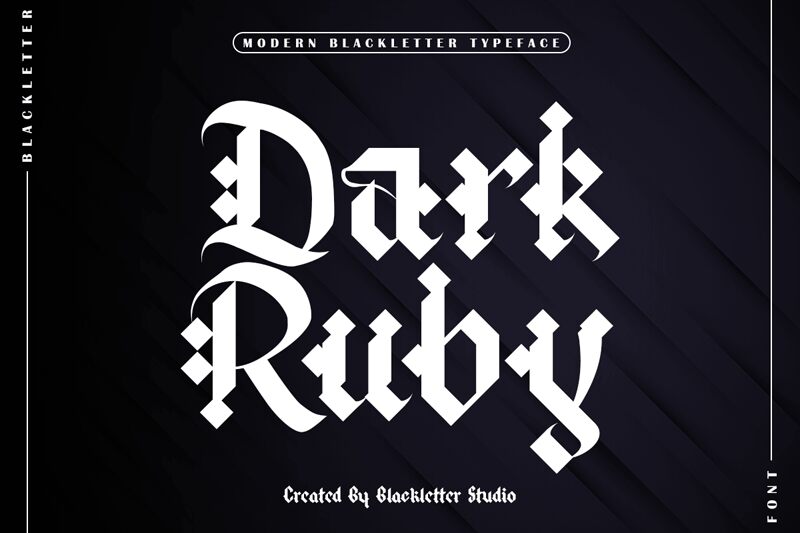
Dark Ruby, the gothic font designed by Blackletter Studio, offers a modern twist on a classic style. Its sharp lines and bold curves make it perfect for projects that require a touch of edginess and sophistication. Its semi-bold width is ideal for headlines, logos and branding materials. Dark Ruby's unique design captures the essence of Gothic architecture, making it the perfect choice for creating designs that evoke this era's mystique and grandeur. Whether you're creating a book cover or designing an event poster, Dark Ruby's modern gothic style is sure to leave an impression.
Dark Ruby